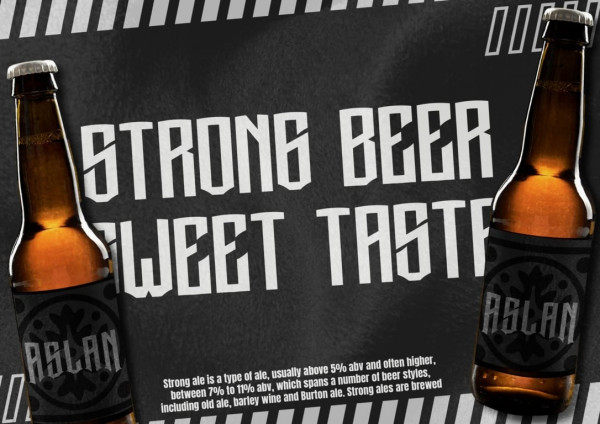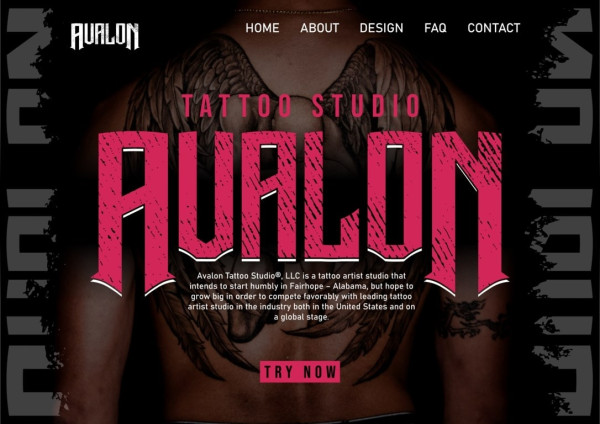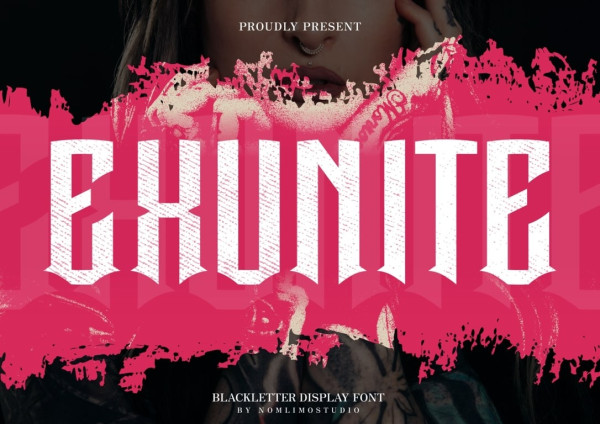
Exunite Font
Exunite Font, a contemporary blackletter typeface. This font is specifically crafted for application in logos and other formal contexts such as clothing, fashion, headlines, and various advertising purposes. Exunite Font is the ideal choice for creating impactful logos and adding a touch of sophistication to your designs. Its versatility extends to the realms of fashion, clothing, and captivating headlines, making it a powerful tool for any type of advertising endeavor. Embrace this unique blackletter typeface and unleash its creative potential in your designs.